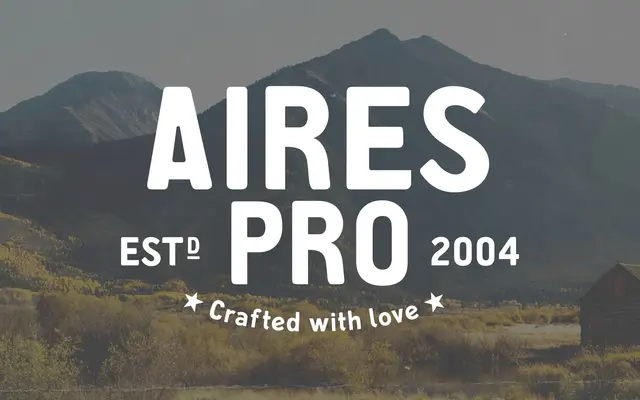
CA Aires Pro
Cape Arcona · Stefan Claudius
A display sans-serif rooted in 1930s postcard lettering, expanded from its original all-caps format into a full character set with italic.
Originally drawn from the words 'BUENOS AIRES' spotted on a 1930s postcard stamp, the design began as an uppercase-only free font before growing into a full Pro release with lowercase letters and an italic. The expansion into lowercase was driven by requests from Spanish-speaking users, and the additional italic style adds expressive movement without abandoning the clean, idiosyncratic character of the originals. Two styles are supported across Western and Central European encodings, with a modest set of OpenType features including stylistic sets and fractions.
The foundry classifies it as Display Sans Serif; the design originated from all-caps letterforms on a 1930s postcard, giving it a distinctive period character with quirky, expressive forms suited to display use rather than text setting.